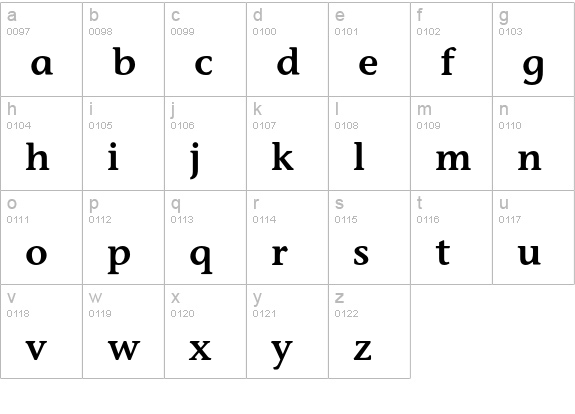
StoneInforEF-SemiBold is a sub-bold, structured variant in the StoneInforEF typeface family \xE2\x80\x94 well suited to sub-headlines and emphasised passages.
StoneInforEF-SemiBold is a modern and stylish font that exudes a sense of sophistication and elegance. Its bold and semi-bold weights make it perfect for creating eye-catching headlines and titles. With its clean lines and sharp edges, StoneInforEF-SemiBold commands attention and adds a touch of class to any design project. This versatile font is suitable for a wide range of applications, from branding to editorial design. Best of all, StoneInforEF-SemiBold is available for free download at FontsMarket.com. Whether you're a professional designer looking for a new font to add to your collection or a hobbyist experimenting with typography, this font is a must-have addition to your toolkit. Don't miss out on the opportunity to enhance your projects with the timeless elegance of StoneInforEF-SemiBold. Download it today and elevate your designs to new heights.